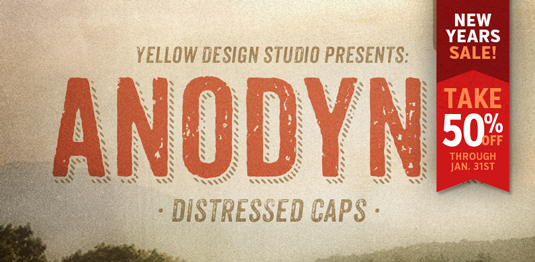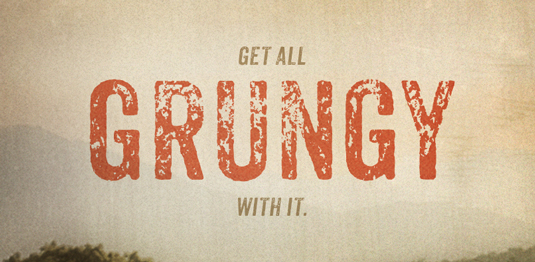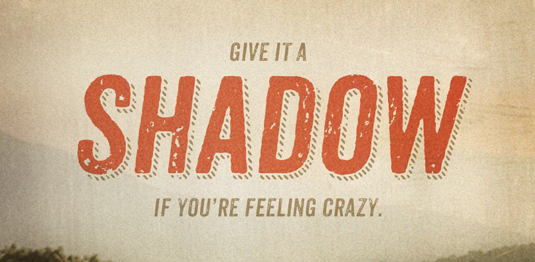
Font of the day: Anodyne
Every day we showcase the best fonts on the web. Today it's Anodyne from Yellow Design Studio.
Anodyne from Yellow Design Studio
Anodyne, from Yellow Design Studio, is described on font shop HypeForType as 'a warm and weathered all-caps font with hand-printed texture and unique shadow options. Features include four distress variations for each letter and at least two for every other character'.